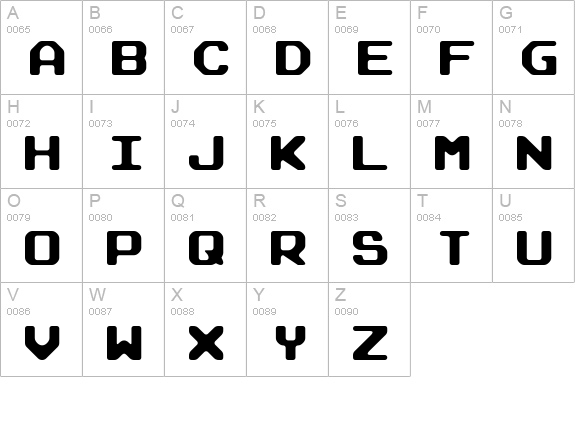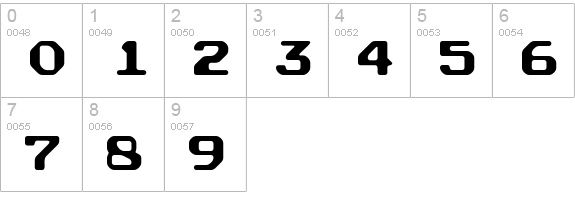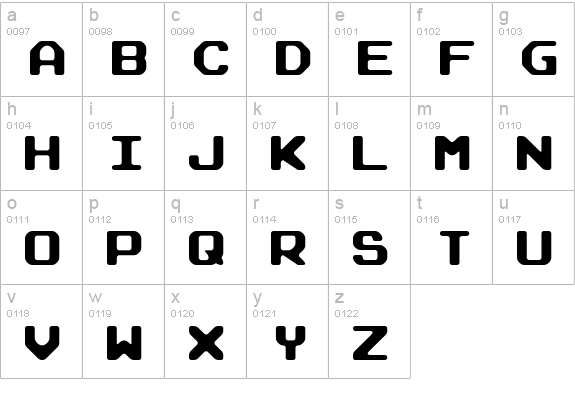
The Arcade Rounded font is a modern and playful typeface that is perfect for adding a fun and casual touch to your designs. With its rounded edges and bold characters, this font exudes a sense of energy and excitement. Whether you're creating posters, logos, or social media graphics, Arcade Rounded will make your text stand out and capture the attention of your audience. The best part? Arcade Rounded is completely free to download at FontsMarket.com! So go ahead and give your projects a fresh and vibrant look with this fantastic typeface. Don't miss out on this opportunity to enhance your design work with this stylish and eye-catching font. Download Arcade Rounded today and let your creativity shine!